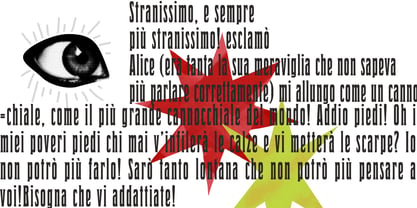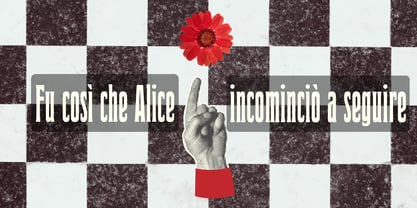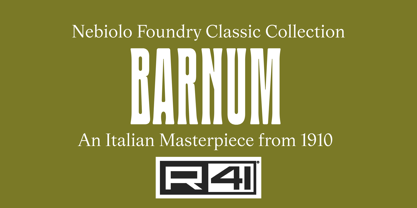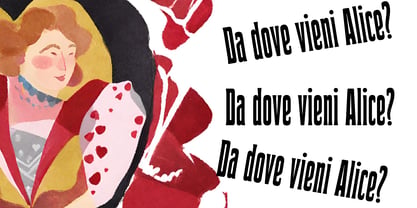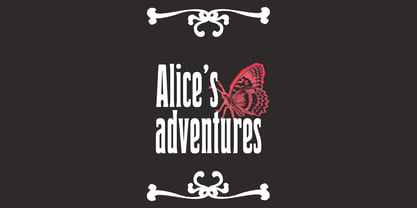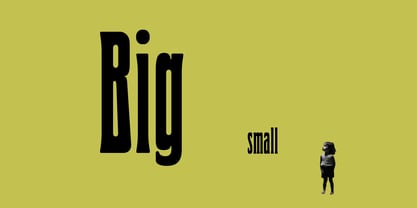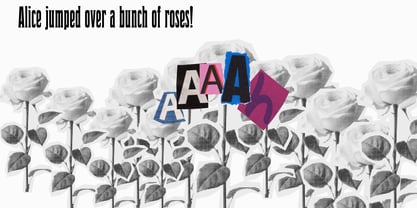
R41 Barnum
by Reber R41
The R41 Barnum Font Family was designed by Ariel Brandolini, Daniele Medina and published by Reber R41. R41 Barnum contains 1 styles. More about this family
This display face issued in 1910 embodies a style in vogue during “La Belle Epoque,” a time when the floral style was supreme in all art fields. This very condensed type is still in use today, not only for its design but also for the advantages of its narrow dimensions. It has been used in famous Italian newspapers and is part of the Italian visual history, announcing events such as the First World War I, the sinking of Titanic, and the first intercontinental flight.
Designers: Ariel Brandolini, Daniele Medina
Foundry: Reber R41
Reber R41 is an Italian company founded in Spresiano, Treviso, in 1960 by Renato Bernardi, inventor of his own method of dry transfer type, and still run by his family. Since 1969, R41 has produced dry-transfer adaptations of iconic designs from Nebiolo Type Foundry, including its most experimental creations designed for the booming Italian advertising industry. Designer Aldo Novarese, who retired from Nebiolo in the early ’70s, worked with Reber R41 for years afterward designing brands, catalogues, advertising and of course…typefaces. Now Reber R41 provides new digitizations of the work of Novarese and Nebiolo of Turin, brought together in a unique collection that preserves the best of historic Italian typography of the twentieth century.